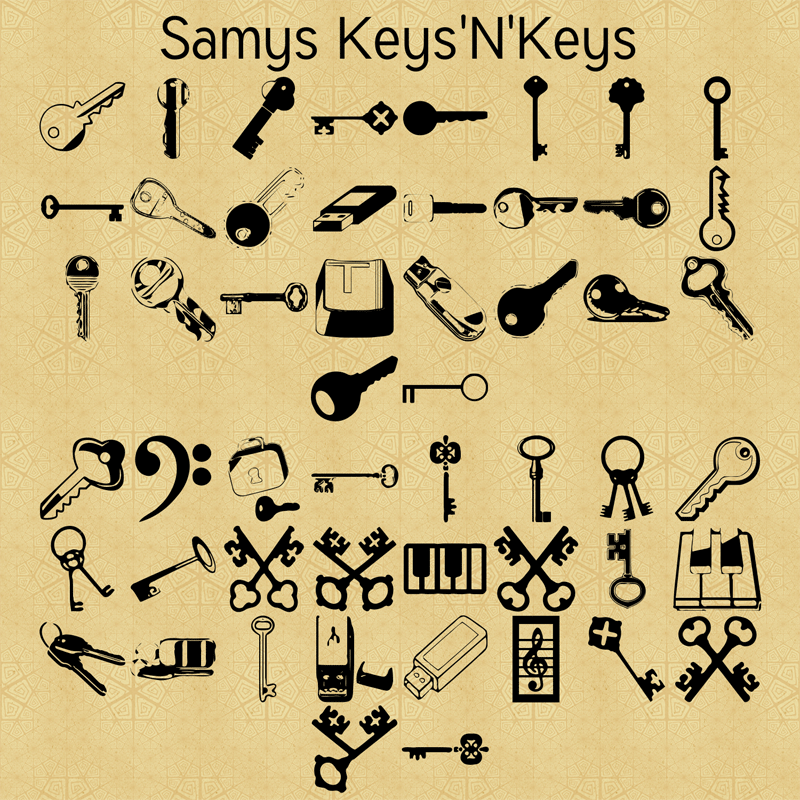
Font name: | Samys Keys'N'Keys |
Author: | Ret Samys |
Note by Ret Samys | |
Public Domain key font, based on Public Domain illustrations found in the OCAL (http://openclipart.org/) |